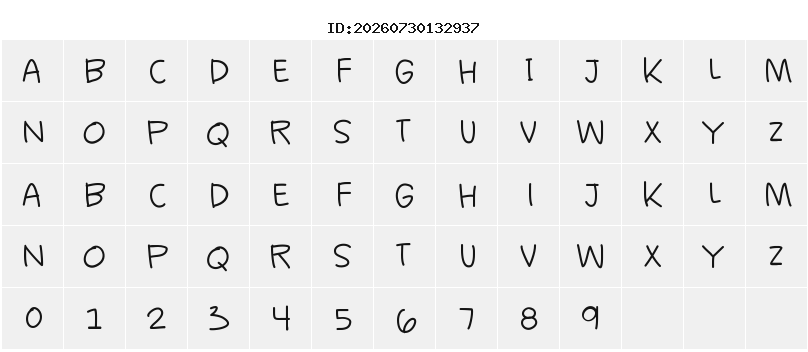
K26CasualComics Preview
• Font Name: K26CasualComics
• Full Font Name: K26CasualComics
About K26CasualComics.ttf
K26CasualComics.ttf is a modern, elegant sans-serif font designed for ultimate readability and visual harmony. Perfect for branding, headlines, web design, and print materials.